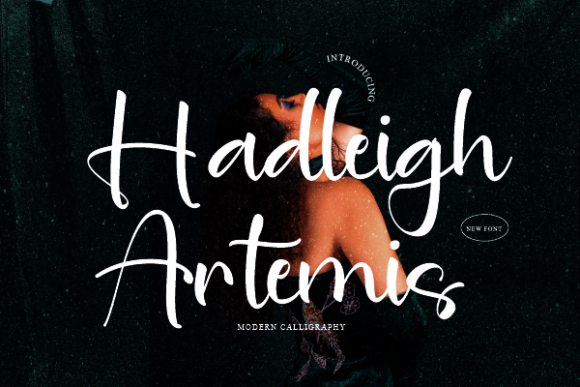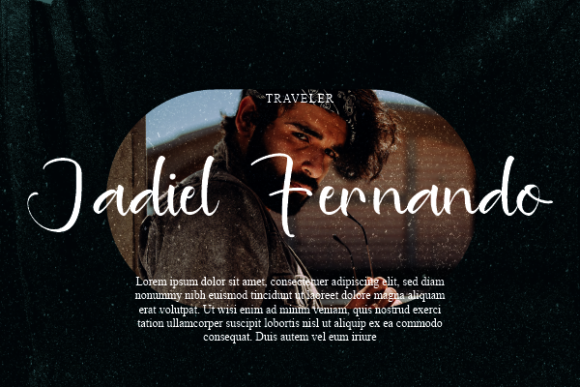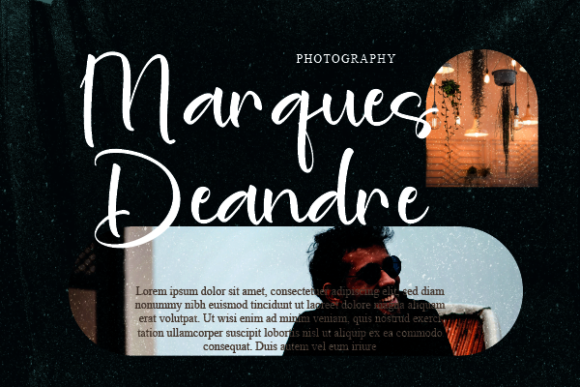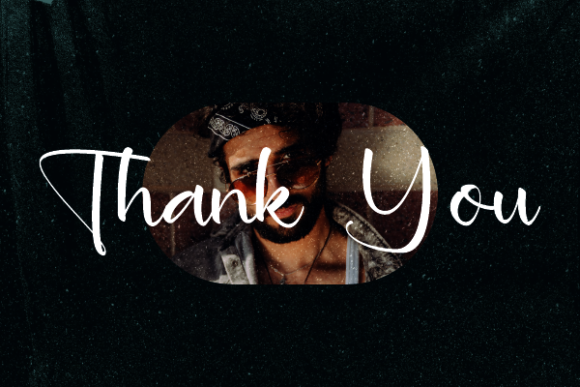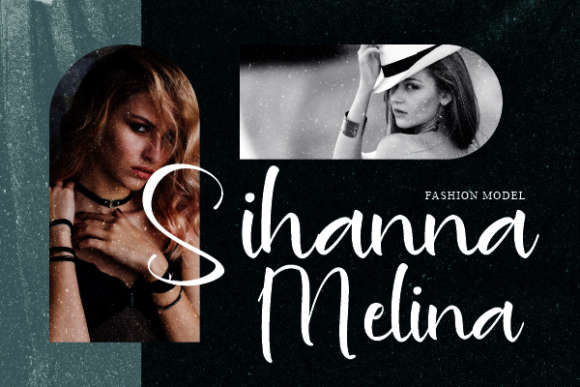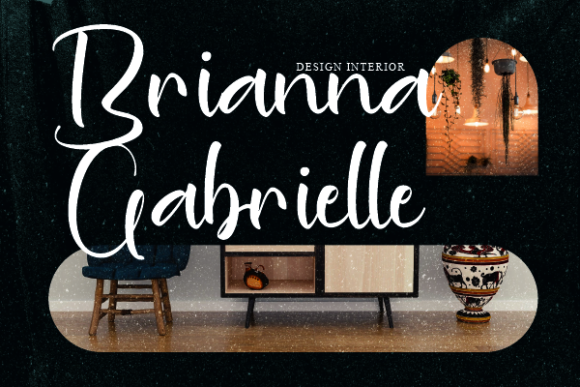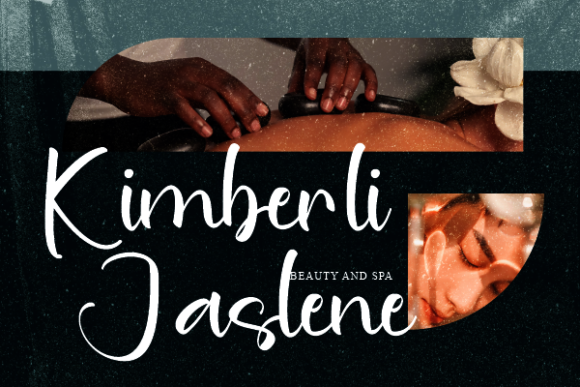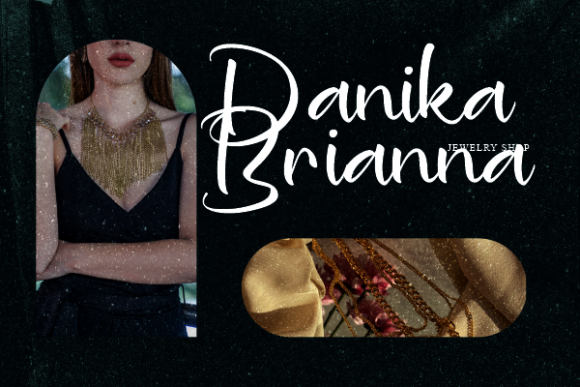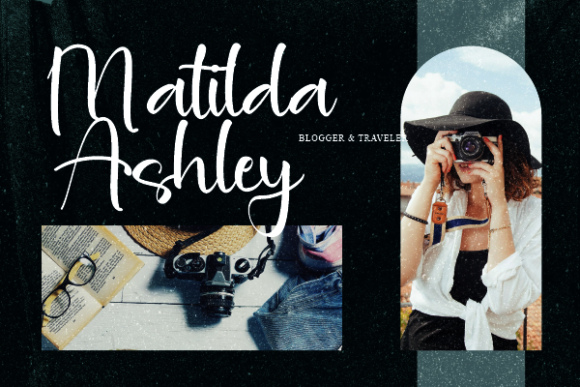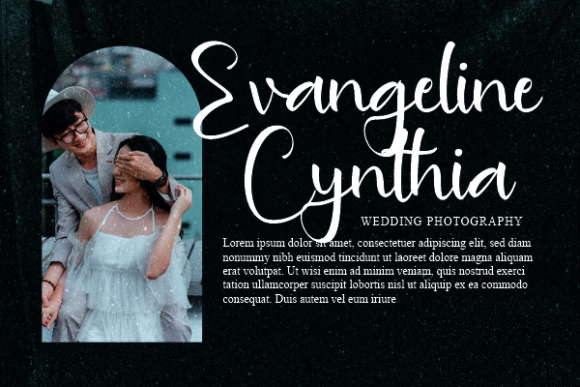
Hadleigh Artemis Font
About Hadleigh Artemis Font
“Hadleigh Artemis” is a delightful script font that showcases charming and playful characters, giving the impression of dancing gracefully along the baseline. Incorporating this font into your most creative ideas can truly elevate them and make them stand out in a remarkable way.
The font’s lovely and whimsical letterforms bring a sense of joy and liveliness to your designs. Whether you’re working on invitations, greeting cards, posters, or digital graphics, “Hadleigh Artemis” has the ability to infuse your creations with a touch of enchantment and creativity.
The font’s playful nature allows it to effortlessly complement a wide range of design concepts. Its distinctive appearance can add a dose of vibrancy to both fun and more sophisticated projects. By integrating “Hadleigh Artemis” into your designs, you add an element of visual interest and artistic flair that captures attention.
In essence, “Hadleigh Artemis” is more than just a font—it’s a creative tool that enhances your ideas with charm and personality. Its playful characters, combined with their dancing quality along the baseline, make it a valuable asset for designers aiming to create captivating and uniquely expressive designs.